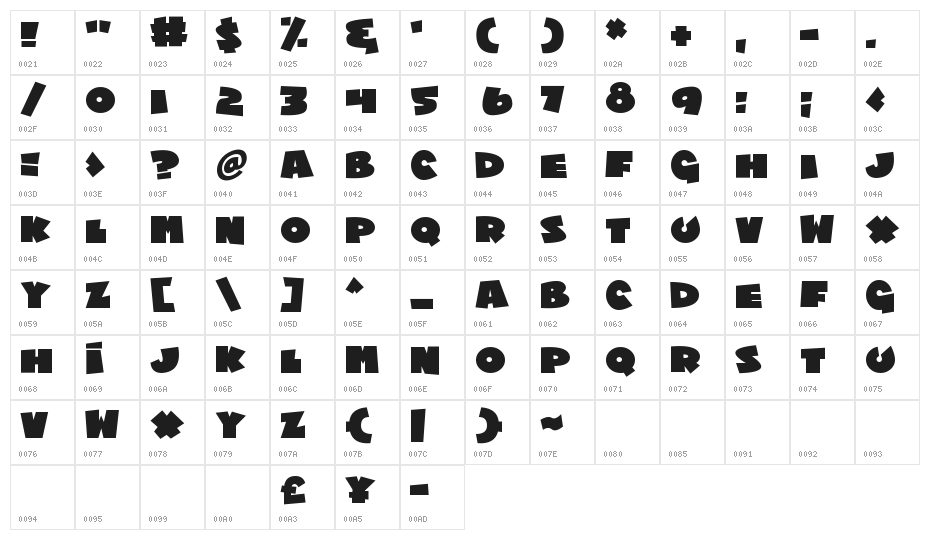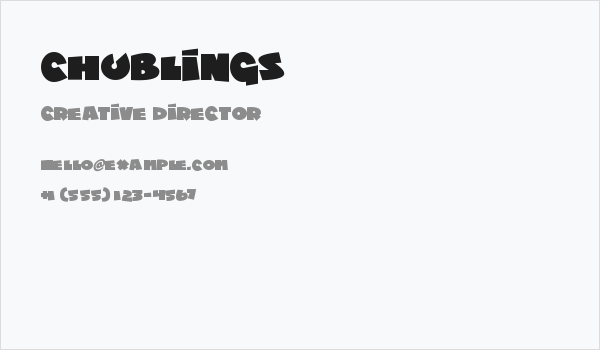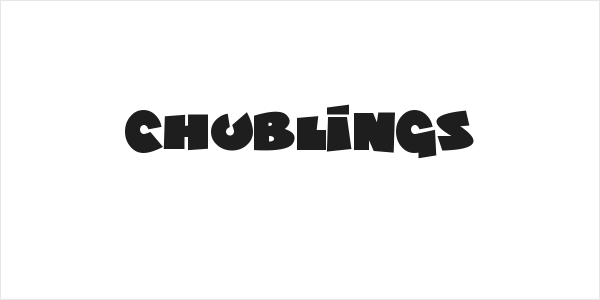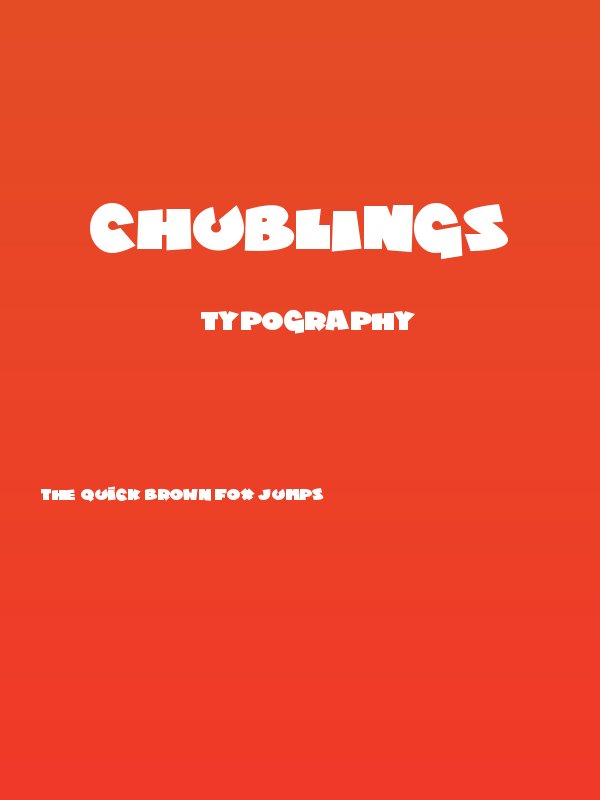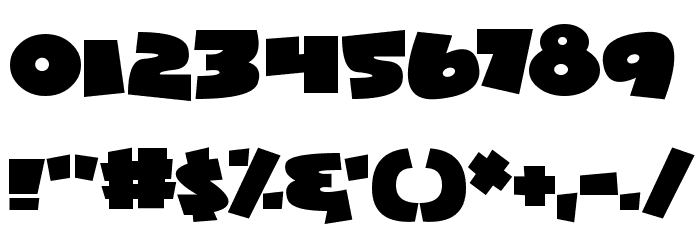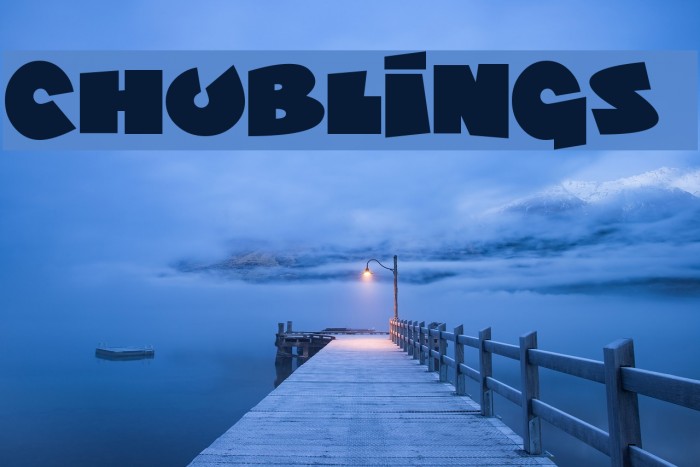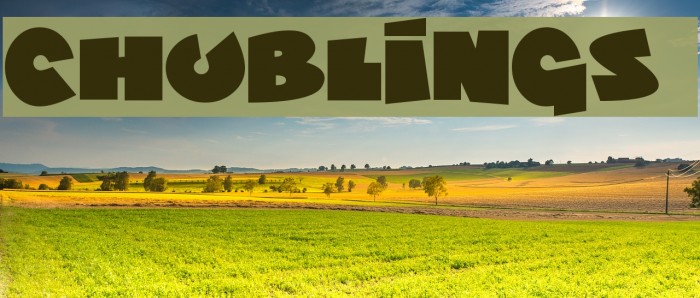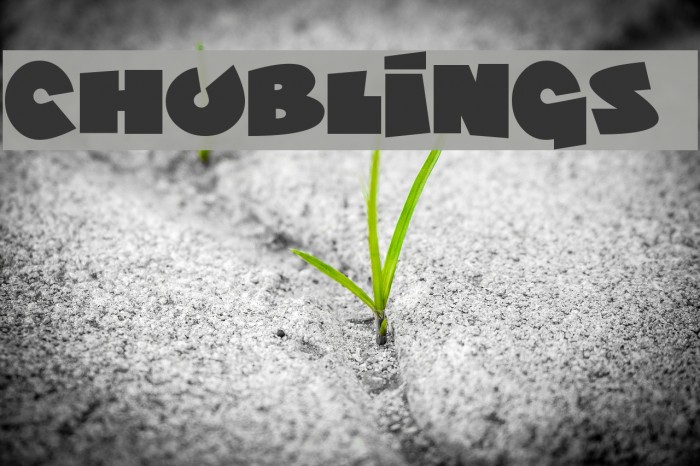
Chublings Font
Chublings Description
This font features a playful and bold design, characterized by its chunky and irregular letterforms. Each character has a unique, almost cartoonish appearance, with exaggerated curves and angles that give it a lively and dynamic feel. The font's thick strokes and whimsical style make it stand out, capturing attention with its fun and energetic vibe. It's perfect for projects that require a touch of humor and creativity, making it ideal for children's books, playful branding, or eye-catching headlines.
| Overall Style | Playful, Cartoonish, Fun |
| Proposed Projects | Ideal for children's books, playful branding, party invitations, and eye-catching headlines. |